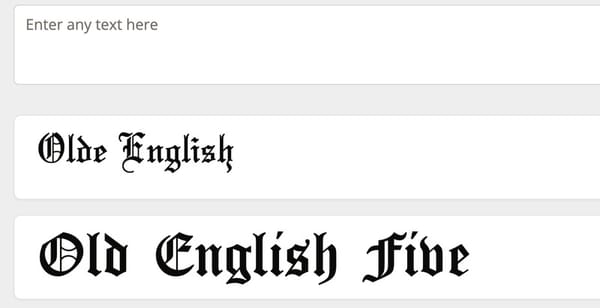
The Old English Font Generator is an online tool that converts standard text into Gothic-style Old English lettering. Users can input any text and instantly generate visually distinct characters that reflect traditional calligraphy, making it suitable for social media posts, digital art, and graphic design projects.
The tool provides a simple, browser-based interface, eliminating the need for additional software or design skills. Its functionality allows users to experiment with different styles and instantly preview their text in an Old English format, which can then be copied and used across platforms such as Instagram, TikTok, or personal projects. By automating the transformation process, the generator offers an efficient way to add stylistic flair to text while maintaining consistency and accessibility for users seeking a unique typographic aesthetic.